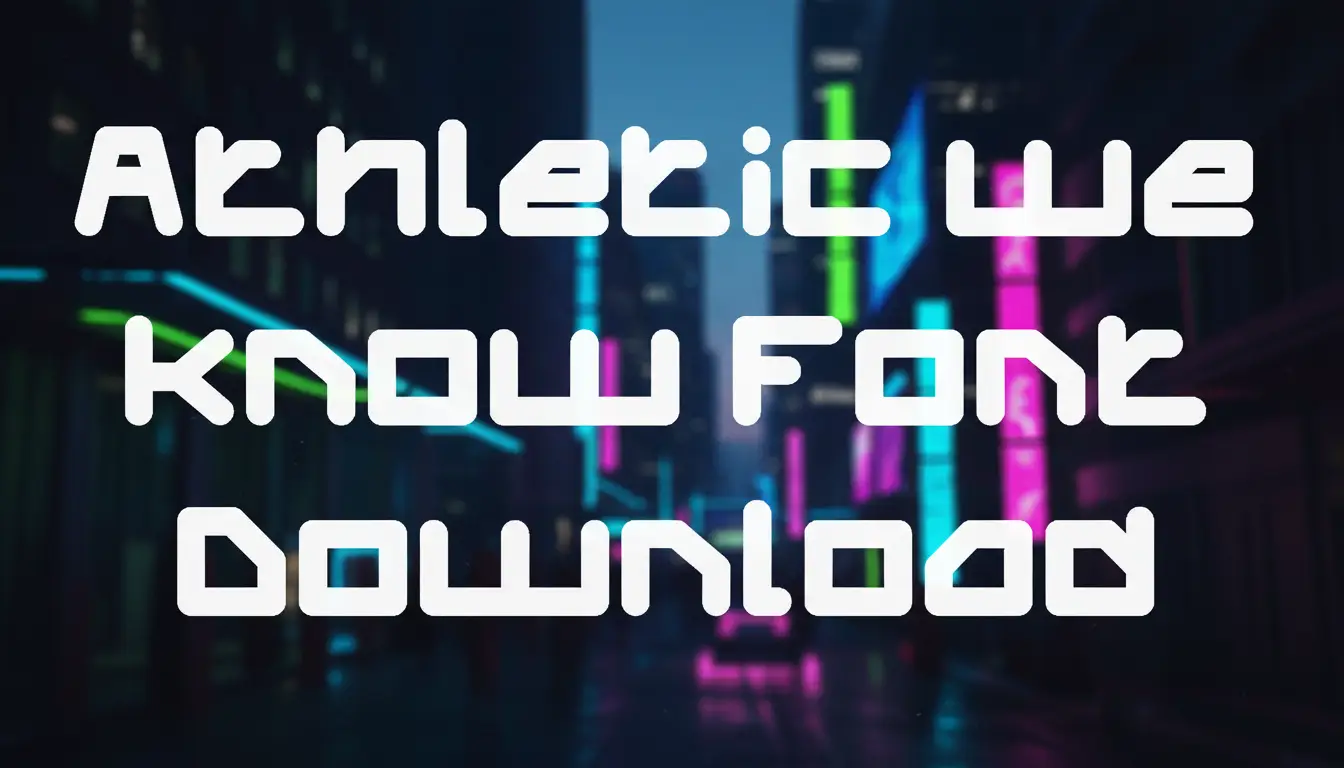
Athletic we know Font
Athletic we know is a techno font. Its angular, engineered shapes look right at home on screens and tech products. The free download includes four styles, and you can try every one of them with your own text in the preview above.
Athletic we know Font Details
What You Can Type With Athletic we know
Athletic we know covers the full alphabet in upper and lowercase, plus all ten numbers, so you can set names, dates and prices without switching fonts. Common punctuation such as &, !, ? and @ is included as well. It also has the accented letters you need for Spanish, French, German, Portuguese and Italian.
Where Athletic we know Works Best
Designers usually reach for fonts like Athletic we know when they're making gaming logos, tech branding and futuristic posters. Try it on a dark background with a bright accent color for a sharp, modern look. Because the family has more than one style, you can mix them in a single design for headings, subheadings and highlights.
Does Athletic we know support accented letters?
Yes. Athletic we know includes the accented letters needed for Spanish, French, German, Portuguese and Italian, so it works for more than just English.
What fonts pair well with Athletic we know?
A simple sans serif like Roboto keeps longer text easy to read next to it.